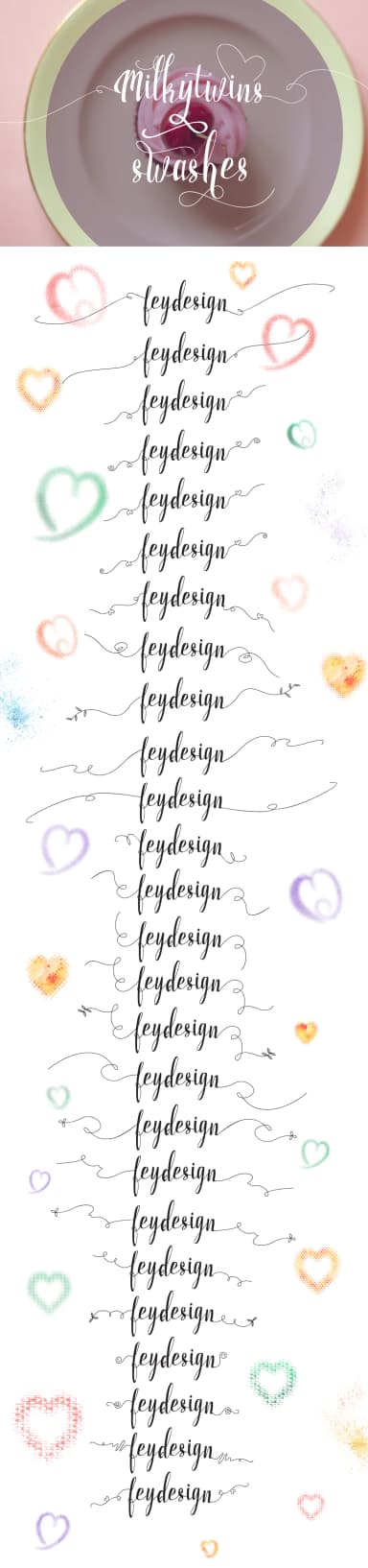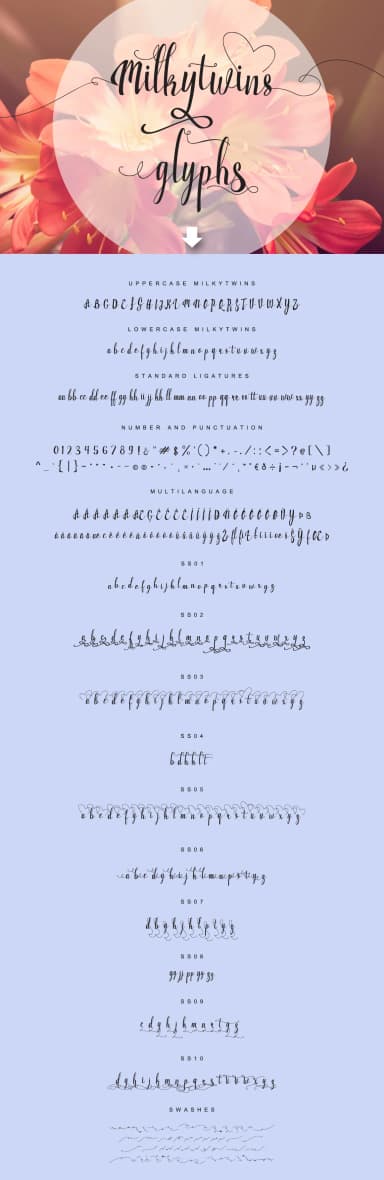
Milkytwins Font by feydesign is a contemporary calligraphy script that combines flowing, elegant letterforms with distinctly modern sensibility. Ideal for wedding invitation suites and announcements requiring personalized, handwritten character; artisanal cosmetic and skincare packaging for boutique beauty brands; premium event signage and ceremony programs; and handcrafted greeting card designs, this typeface delivers the visual sophistication that quality-focused creative projects demand. The font package includes five alternate letter sets and decorative swashes, enabling designers to create richly layered and textured compositions with authentic appeal while minimizing letter repetition across longer passages and extended body text. This extensive variant system transforms what could become monotonous repetition into dynamic, varied letterforms that feel genuinely handmade.
Lettering professionals and independent brand designers increasingly turn to Milkytwins for its distinctive balance between romantic elegance and contemporary visual edge. These character variations prove invaluable when developing upscale product labels, crafting social media quote graphics, establishing brand identities, or creating custom monograms where visual personality and distinctiveness matter most. Swash accents add precisely calibrated flourish to focal points, headlines, and signature elements, enhancing visual interest without overwhelming compositions or sacrificing the restraint and polish that sophisticated, luxury positioning requires.
Milkytwins Font is a script font that shines as a display or heading face. Pair it with a clean sans-serif or serif font for body text β the contrast creates a clear hierarchy while the two styles stay balanced and easy to read.
Milkytwins Font
by feydesign